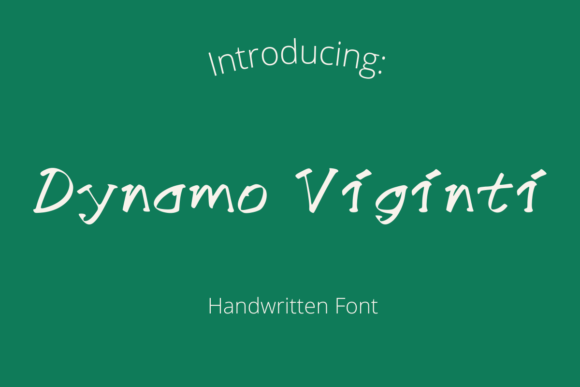
Dyname Viginti Font: Unleashing Creative Expression through Artistic Typography
In the realm of typography, few fonts manage to capture the essence of freehand writing as effectively as Dyname Viginti. This font’s messy and artistic style embodies the raw beauty of handcrafted lettering, infusing designs with an organic and authentic touch. Ideal for creatives seeking to evoke a sense of imagination and originality, Dyname Viginti is perfect for art posters, handmade product packaging, and artistic projects that demand a unique visual identity.
The Art of Freehand Writing
Freehand writing is an art form that exudes personality and character. Unlike digital fonts that strive for precision and uniformity, freehand writing is inherently imperfect, with each letter and line telling a story of its own. Dyname Viginti Font masterfully replicates this aesthetic, offering a typographic solution that is as much a creative expression as it is a means of communication.
Design Characteristics of Dyname Viginti
Dyname Viginti boasts a range of design characteristics that set it apart from more conventional fonts. Its letters are fluid and dynamic, with varying line widths and an almost tactile quality that suggests they were drawn rather than typed. This font’s artistic style is not just visually appealing; it also adds a layer of emotional depth to designs, making them more relatable and engaging.
Applications of Dyname Viginti
The versatility of Dyname Viginti makes it suitable for a wide array of design applications. Here are a few areas where this font truly shines:
- Art Posters: For posters that aim to stand out and make a statement, Dyname Viginti offers a typographic solution that is both eye-catching and expressive.
- Handmade Product Packaging: Adding a personal touch to product packaging can significantly enhance brand identity and customer engagement. Dyname Viginti’s unique style makes it perfect for handmade products, crafts, and artisanal goods.
- Artistic Projects: Whether it’s for branding, promotional materials, or digital content, Dyname Viginti can add a creative flair to any artistic project, helping it to stand out in a crowded creative landscape.
Why Choose Dyname Viginti?
In a digital age where uniformity and consistency are often prioritized, Dyname Viginti offers a refreshing alternative. Here are a few reasons why designers and crafters might choose this font for their projects:
- Unique Aesthetic: Dyname Viginti provides a distinctive look that can help designs stand out and capture attention.
- Emotional Connection: The font’s artistic and somewhat imperfect nature can create an emotional connection with viewers, making designs more memorable.
- Versatility: Suitable for a range of applications, from digital designs to print materials, Dyname Viginti is a versatile addition to any designer’s toolkit.
Tips for Using Dyname Viginti Effectively
To get the most out of Dyname Viginti, consider the following tips:
- Pair with Complementary Fonts: While Dyname Viginti can be striking on its own, it can also be paired with simpler fonts to create visual interest and hierarchy in designs.
- Experiment with Colors and Textures: The font’s artistic style lends itself well to creative experimentation with colors and textures, which can further enhance its visual impact.
- Consider Context: While Dyname Viginti is versatile, it’s essential to consider the context in which it will be used, ensuring that it aligns with the overall aesthetic and message of the project.
| Font Name | Dyname Viginti Font |
| Author | Sparkylicious |
Dyname Viginti Font is more than just a typographic tool; it’s a means of creative expression that can bring a unique and artistic touch to a wide range of design projects. Its messy and artistic style, reminiscent of freehand writing, offers a refreshing alternative to conventional fonts, making it an excellent choice for designers and crafters looking to infuse their work with personality and originality. Whether for art posters, handmade product packaging, or artistic projects, Dyname Viginti is poised to unleash creative potential and inspire new levels of artistic expression.